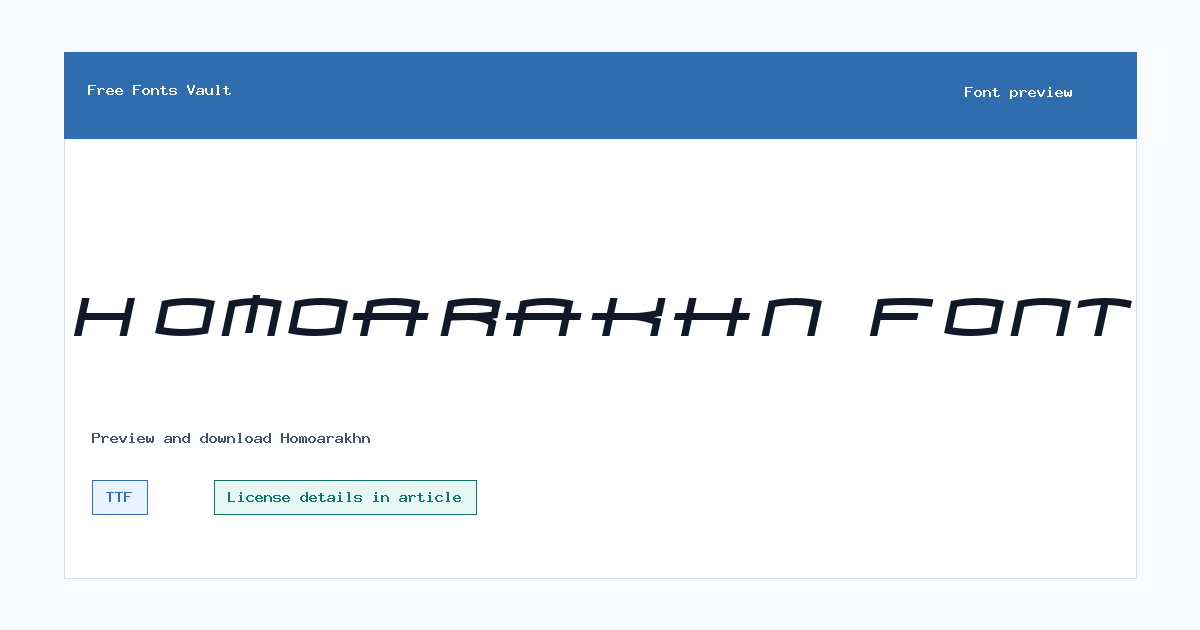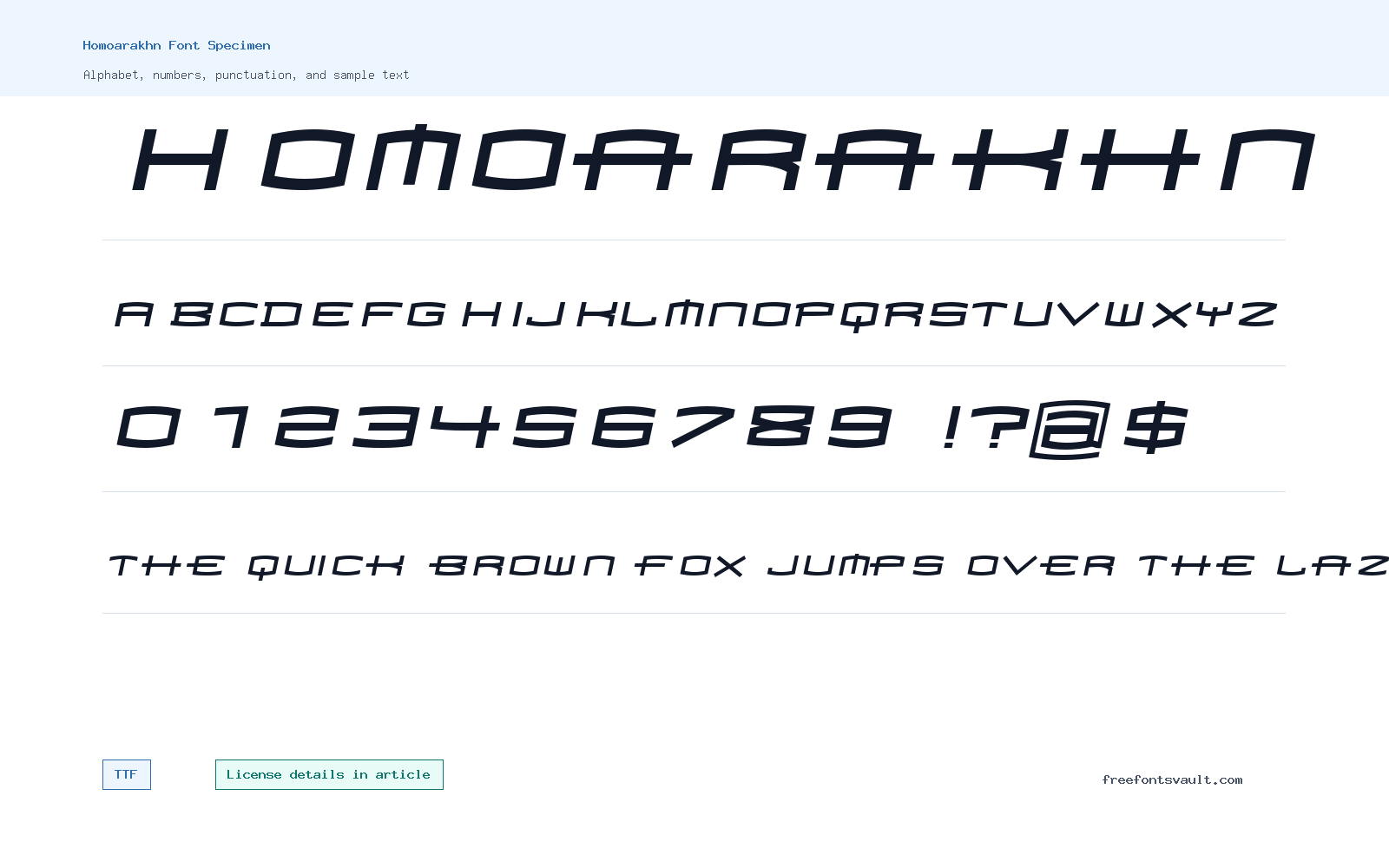
Homoarakhn
- Designer spiderman font, based partiialy on 1979 font
Homoarakhn font.
Homoarakhn is a decorative display font with a spider-comic inspired mood. It is made for short, dramatic words, so treat it as a headline and graphic font rather than a calm reading face.
About Homoarakhn
This style is useful for posters, thumbnails, stickers, fan-style artwork, event graphics, and playful title cards. It can also work for a single word in a gaming or comic layout when the rest of the design stays clean. Avoid using it for paragraph text, small captions, or dense UI labels; the personality is strong enough that it should be used as the accent, not the whole system.
For cleaner results, keep the theme focused. A short word or name usually works better than a sentence, and simple flat backgrounds often make the letter shapes easier to read. If the design needs extra effects, add them around the title instead of stacking too many filters directly on the font.
- Decorative display style with spider-comic energy
- Best for short titles, large graphics, and fan-style mockups
- Needs a simple companion font for body copy and details
- Comic-inspired headings, posters, thumbnails, and stickers
- Fan-style artwork, playful event titles, and dramatic display words
- Large preview text where the theme can stay readable
Use short phrases, increase the size, and test the final background color. For readability, pair Homoarakhn with a clean sans serif and leave enough space around the title.
What kind of font is Homoarakhn?
Homoarakhn is a decorative display font with a comic-inspired feel, best used for short titles and graphics.
Is Homoarakhn an official superhero font?
Is Homoarakhn good for body text?
No. It is better for large display words. Use a simpler companion font for paragraphs, captions, and details.